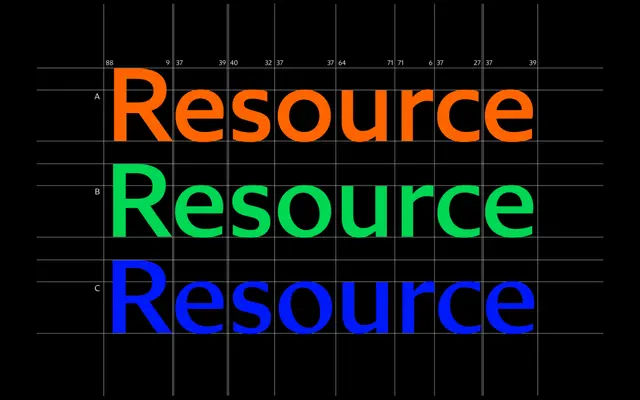
Diverse B
DDOTT · Dominik Thieme · 2022
A humanist sans with subtle stroke contrast drawn from broad-nib pen logic, forming the middle member of a three-family system grounded in Gerrit Noordzij's theory of the stroke.
Diverse B occupies the middle ground of the Diverse system by Dominik Thieme, offering a measured stroke contrast between the monolinear A and the high-contrast C. All three families share a common skeleton inspired by Johnston and Gill Sans, with spacing and kerning unified across the system so contrast levels can be switched between columns without layout disruption. Six weights from Light to Black with true italics are available, alongside an extensive OpenType feature set including small caps, sub- and superscripts, and geometric alternates that temper the calligraphic quality of the base forms.
Diverse B is a humanist sans with subtle stroke contrast, rooted in the broad-nib pen tradition and inspired by early humanist designs such as Johnston and Gill Sans. It sits between the monolinear Diverse A and high-contrast Diverse C within a system grounded in Gerrit Noordzij's contrast theory.